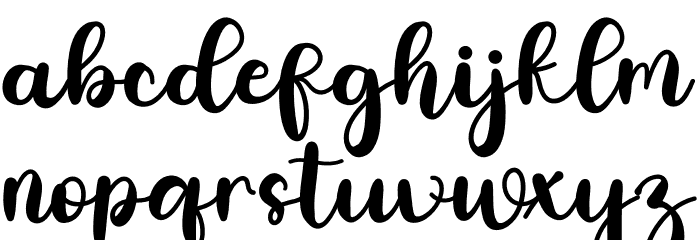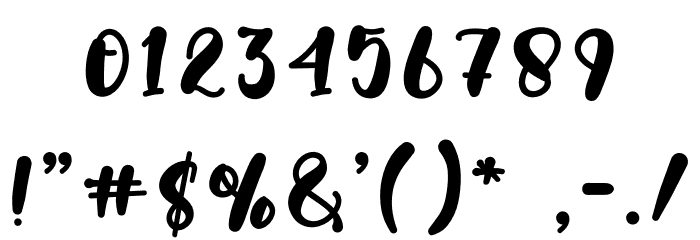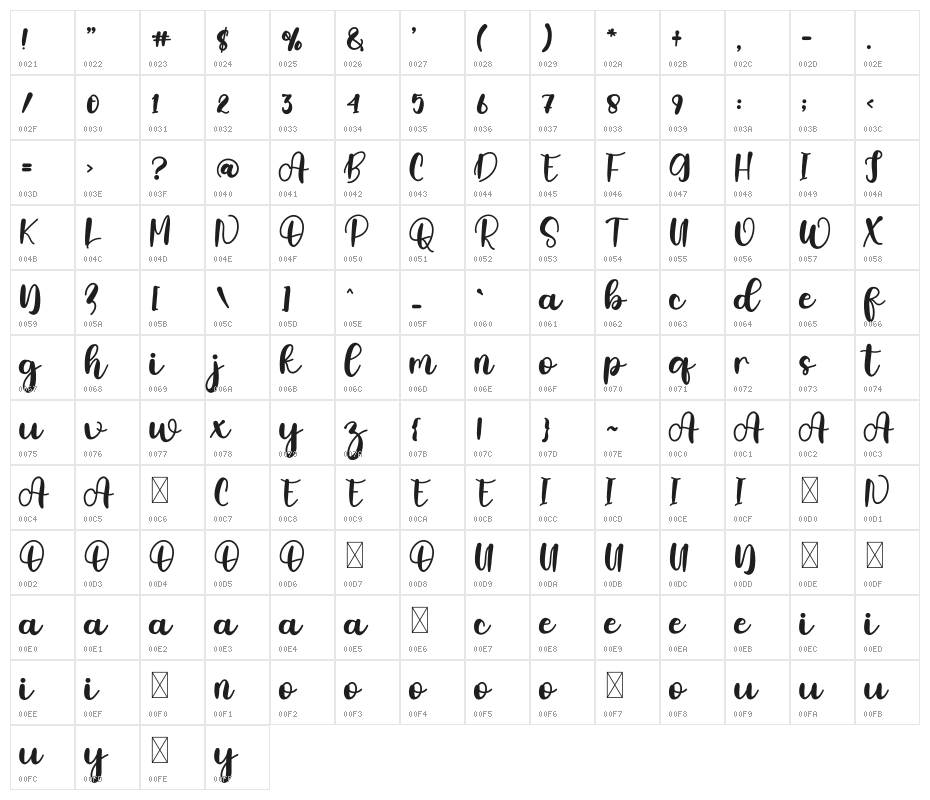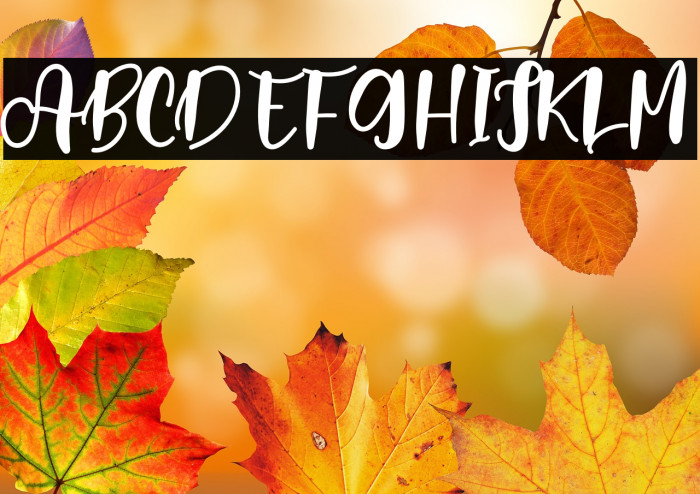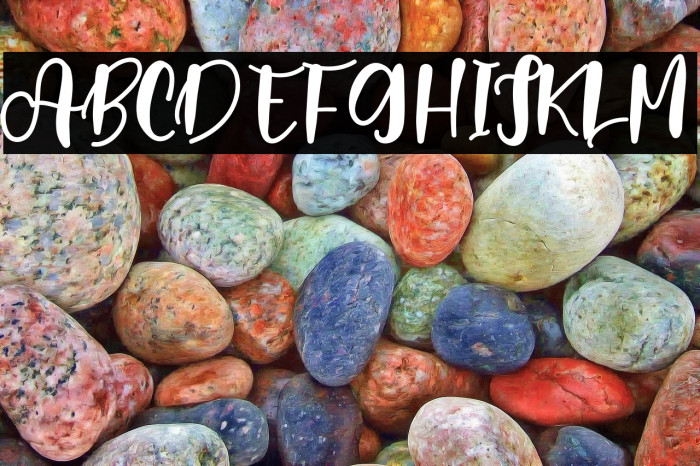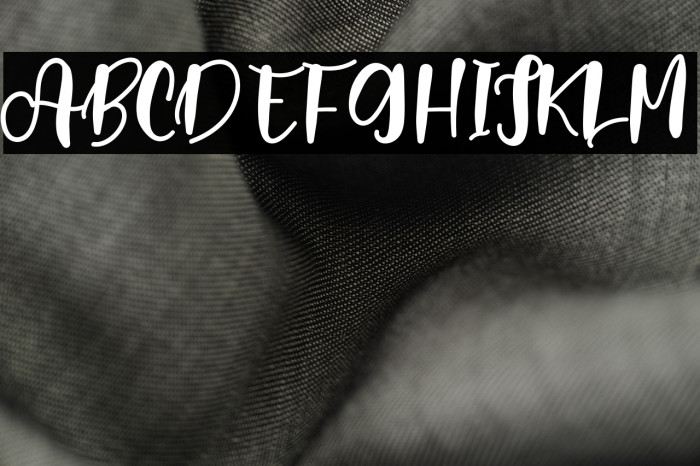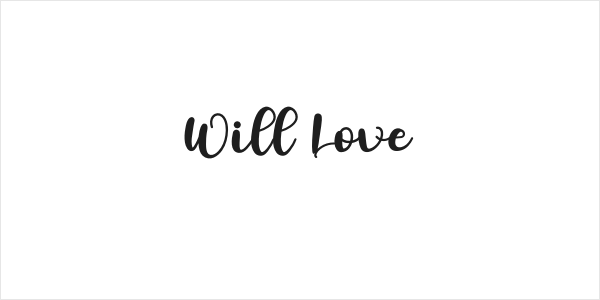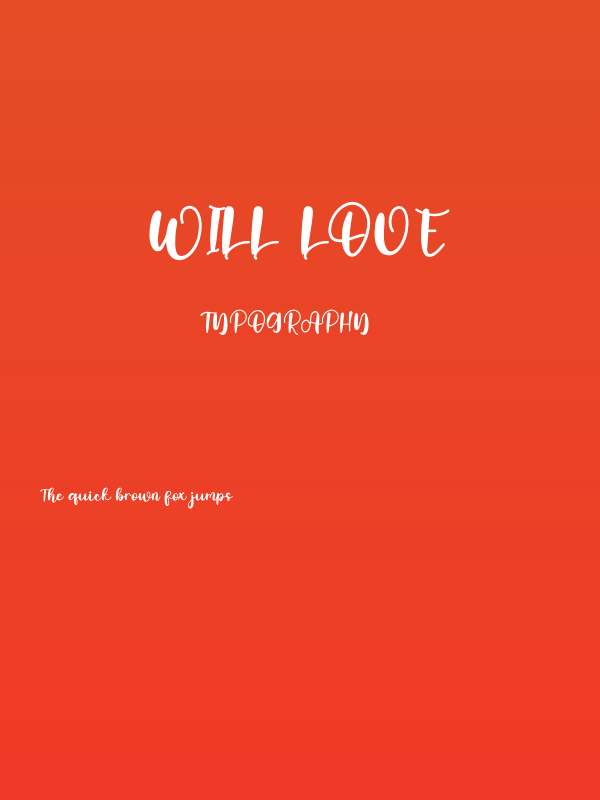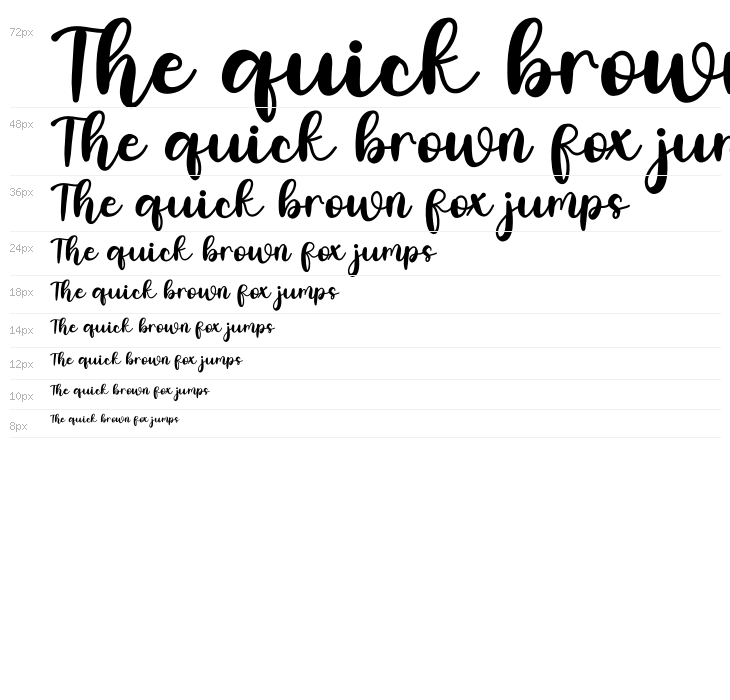
Will Love Font
This font features a lively and expressive script style, characterized by its flowing and connected letterforms. The uppercase letters exhibit a playful elegance with a slight slant, while the lowercase letters maintain a consistent rhythm and fluidity. The numerals are bold and rounded, complementing the overall aesthetic. Special characters are designed with the same whimsical touch, adding to the font's charm. The strokes are thick and consistent, providing a strong visual impact. This font is ideal for projects that require a personal and artistic touch, such as invitations, greeting cards, and branding materials.
A lively and expressive script font with flowing, connected letterforms.
- Font: Will Love
- Proposed Projects: Ideal for invitations, greeting cards, branding, and artistic projects.
- Category: Script
- Use Case: Logos, Headlines, Artistic projects